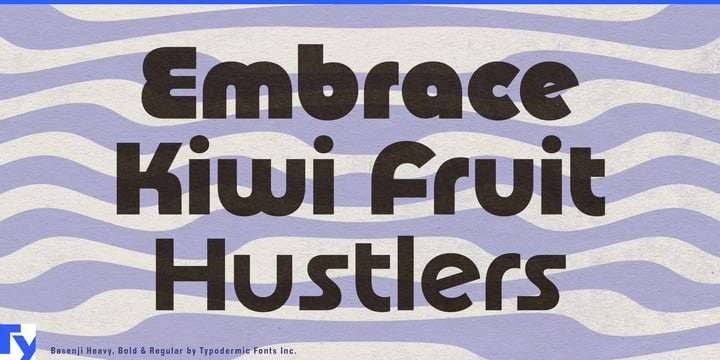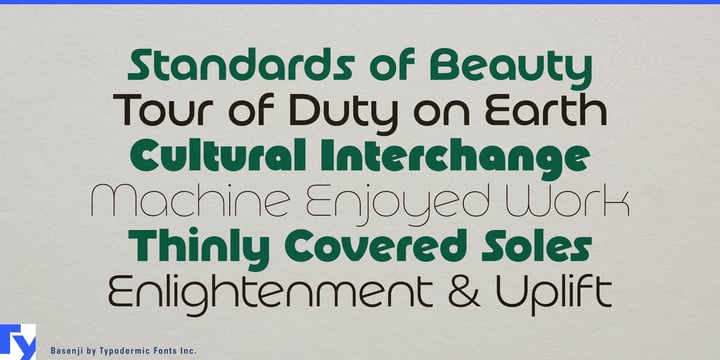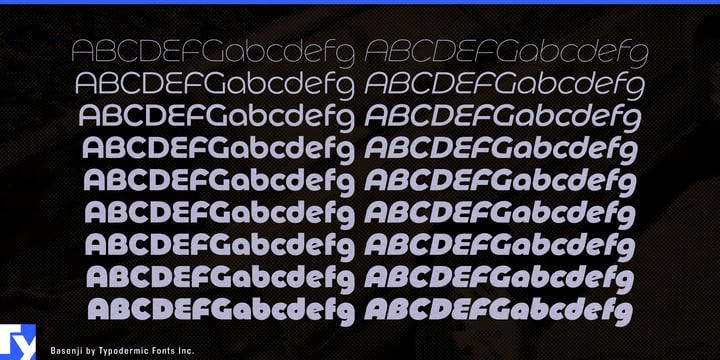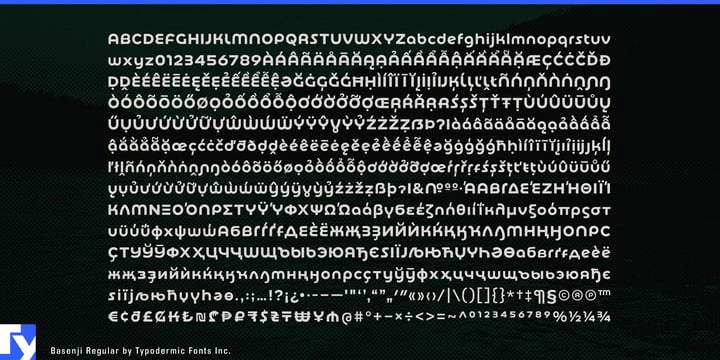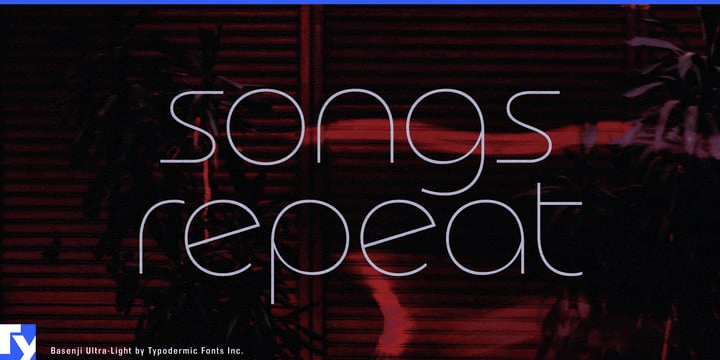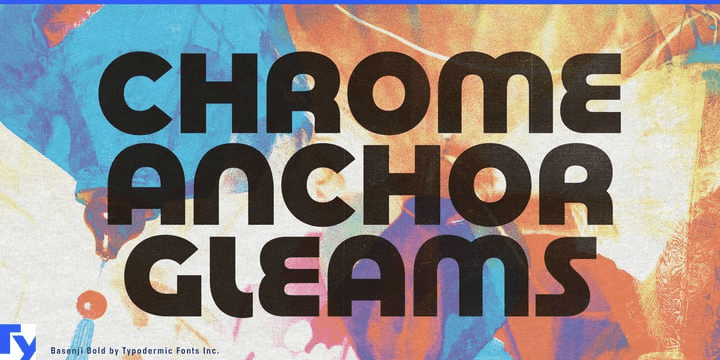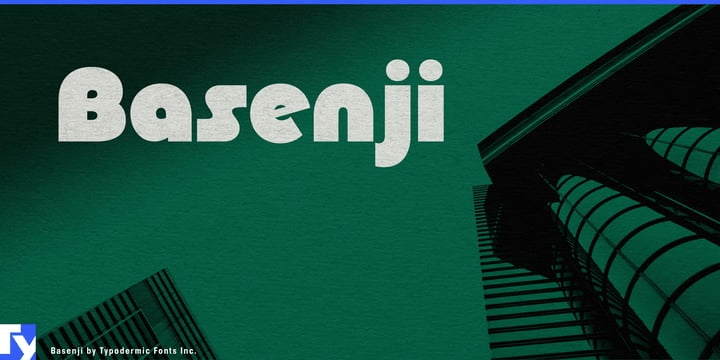
Basenji
Basenji is a flowing headline typeface that pays homage to the modular geometric design trends of the 1970s while offering modern versatility and practicality. This unique font family blends futuristic curves with subtle retro flair, creating a design…